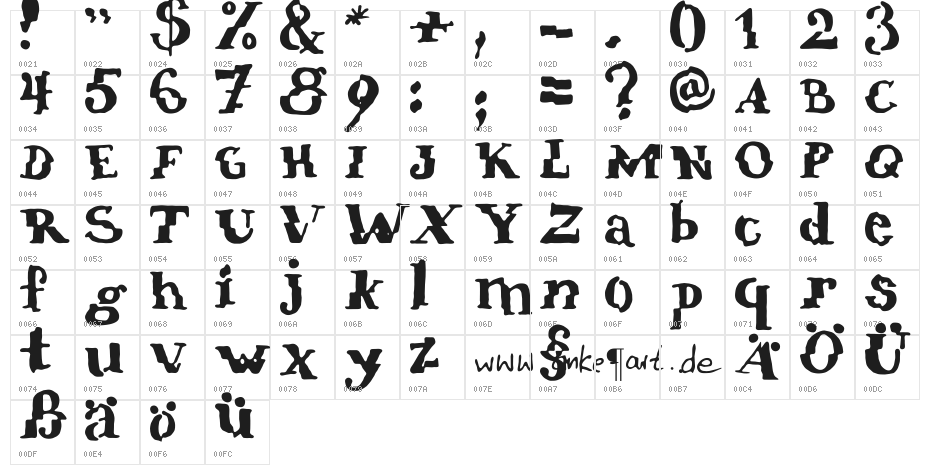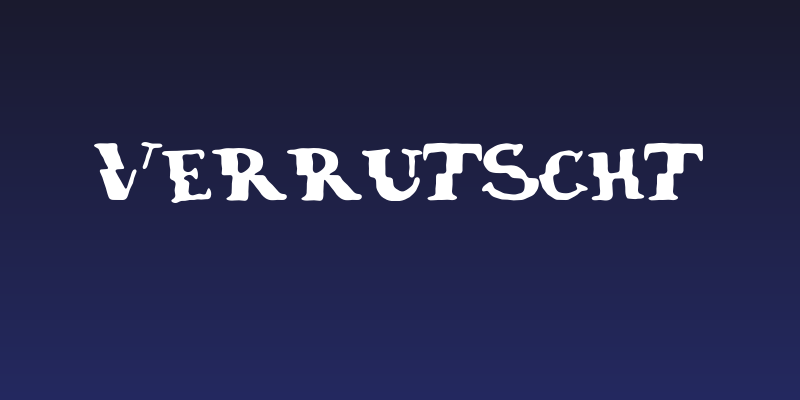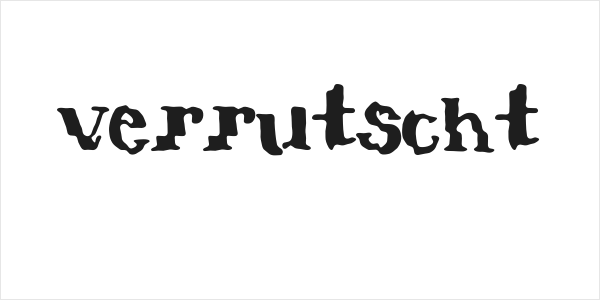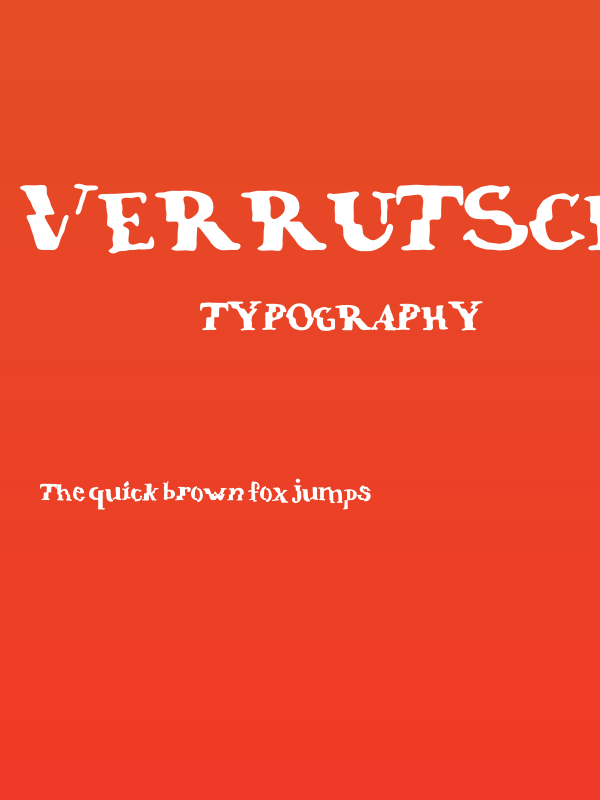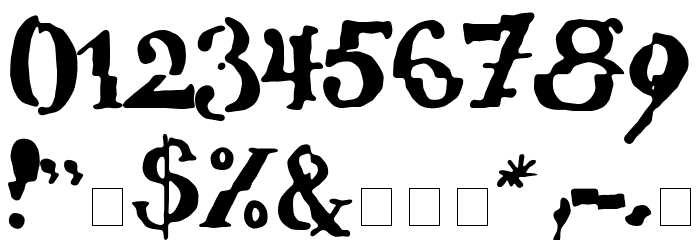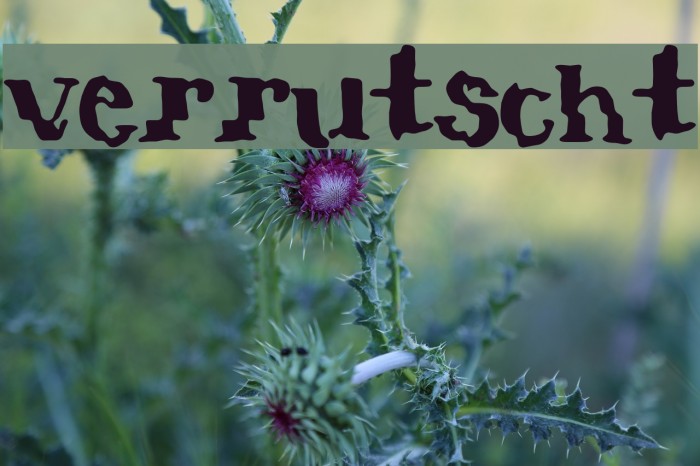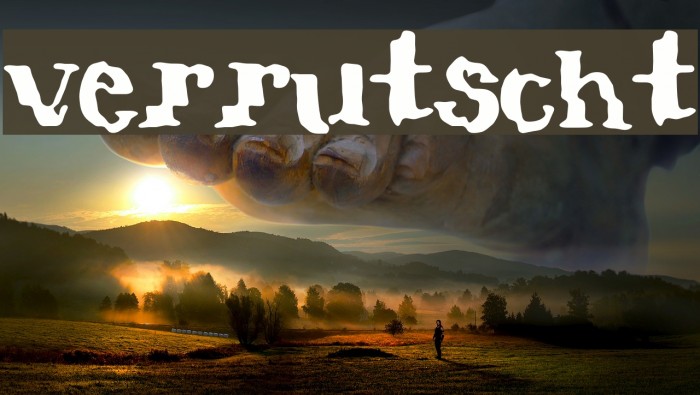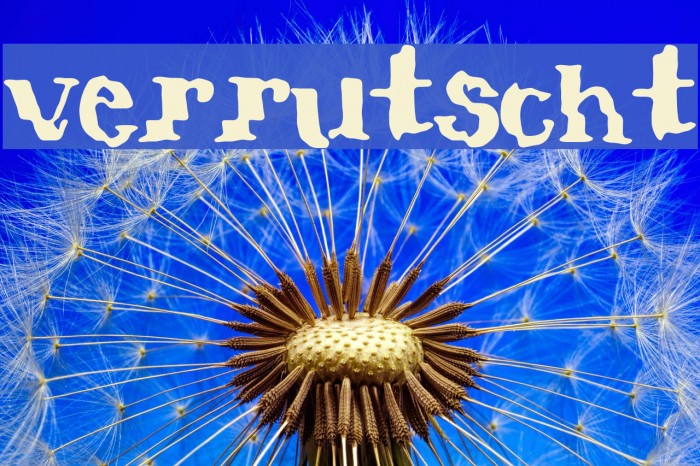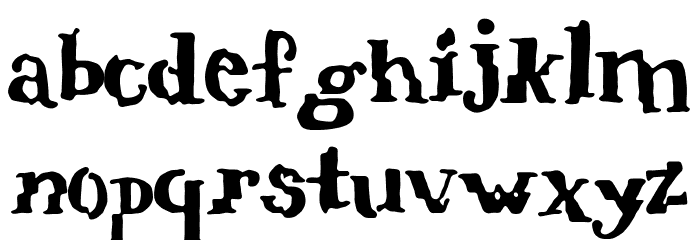
verrutscht Font
verrutscht Description
This font features a bold and playful design with a distinctly irregular and hand-drawn appearance. The characters exhibit a whimsical, almost cartoonish style, with exaggerated serifs and varying stroke widths that create a dynamic and lively look. The uppercase letters are particularly bold, with a strong presence, while the lowercase letters maintain the same playful aesthetic. Numbers and special characters follow the same design principles, adding to the overall cohesive feel of the font. The uneven edges and varying line thicknesses give it a rustic and artistic charm, making it stand out in any design.